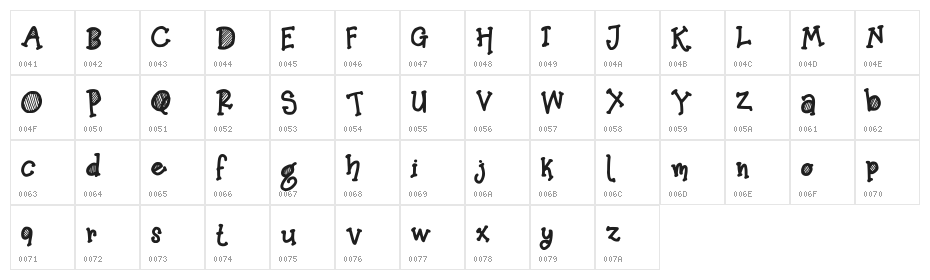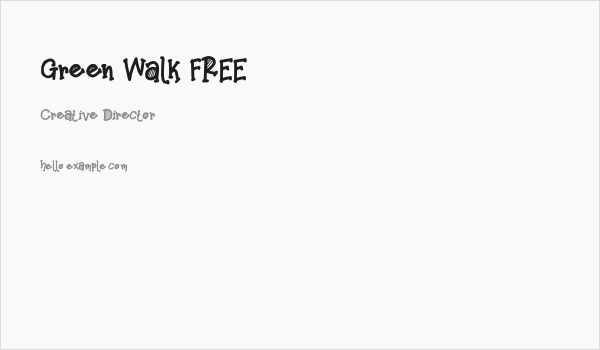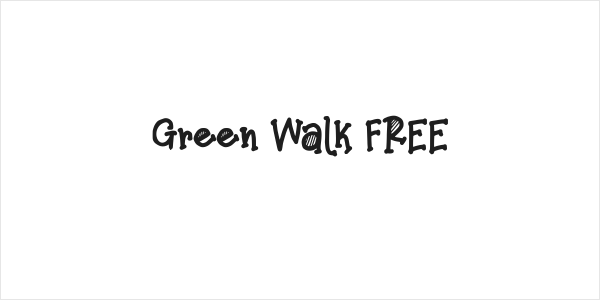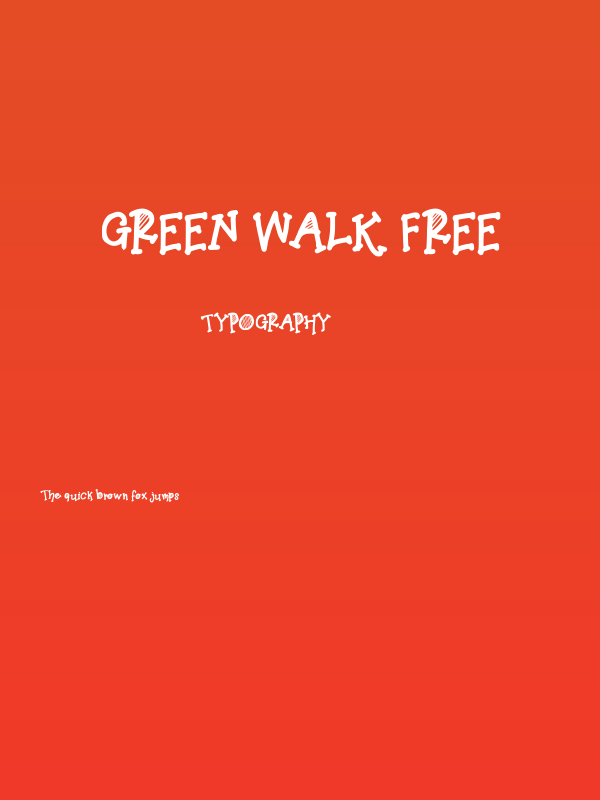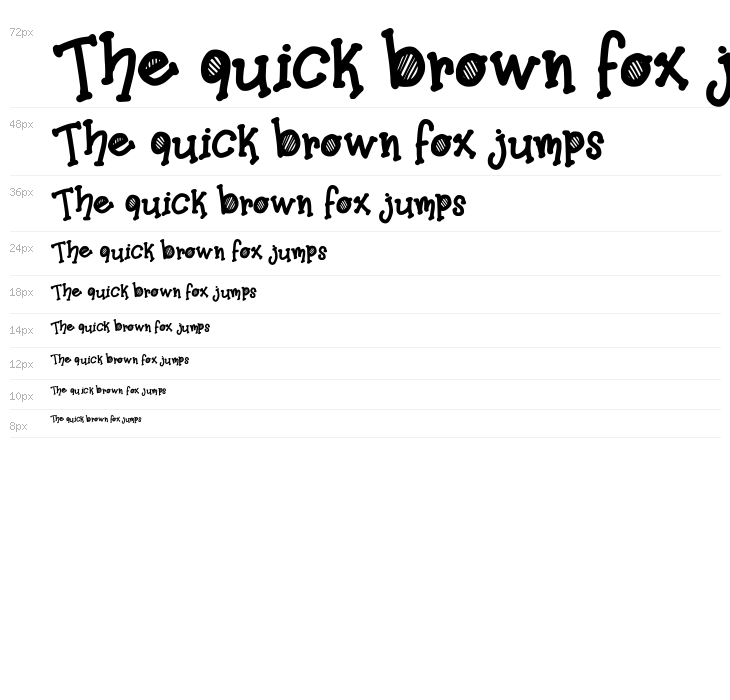
Green Walk FREE Font
Green Walk FREE Description
This playful and whimsical font features a hand-drawn style with a unique, artistic flair. The uppercase and lowercase letters are characterized by their bold, irregular strokes and quirky shapes, giving them a lively and dynamic appearance. The font includes a mix of solid and striped patterns within the letters, adding to its distinctive look. The characters have a slightly uneven baseline, enhancing the casual and informal feel. This font is perfect for projects that require a fun and engaging visual element, making it ideal for children's books, playful branding, or creative posters.
| Overall Style | Whimsical, Playful |
| Proposed Projects | Ideal for children's books, playful branding, creative posters, and informal invitations. |